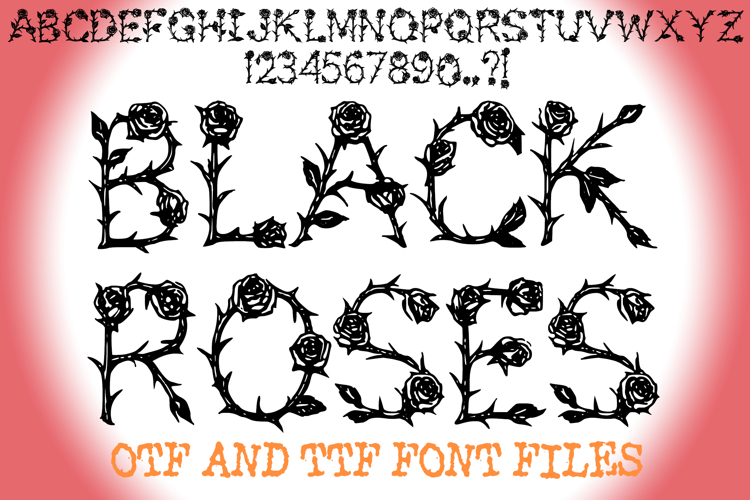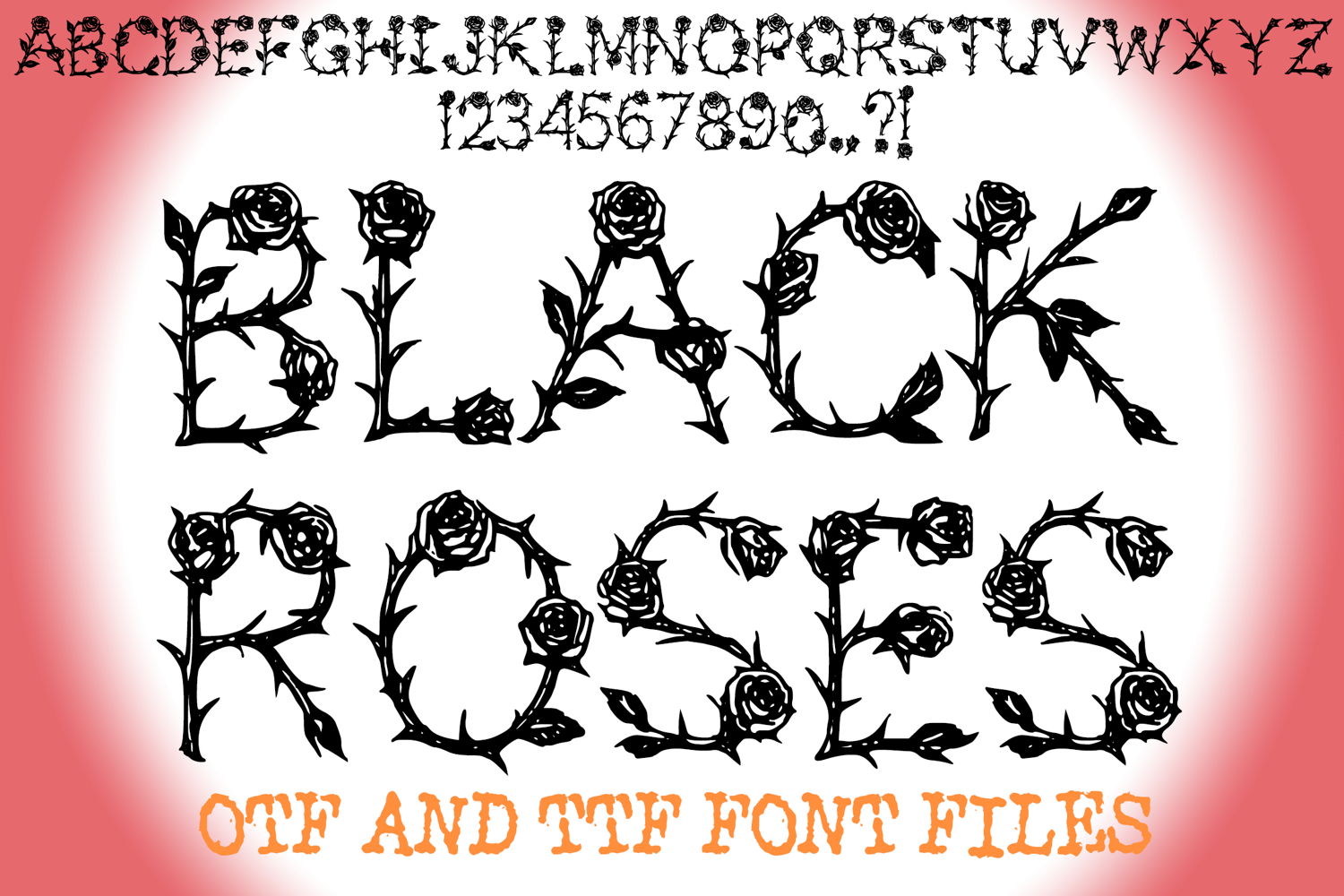
Black Roses Alphabet Lettering ABC Floral Text Font OTF
A unique flower style font where you can create your own words and colour them to your vision!